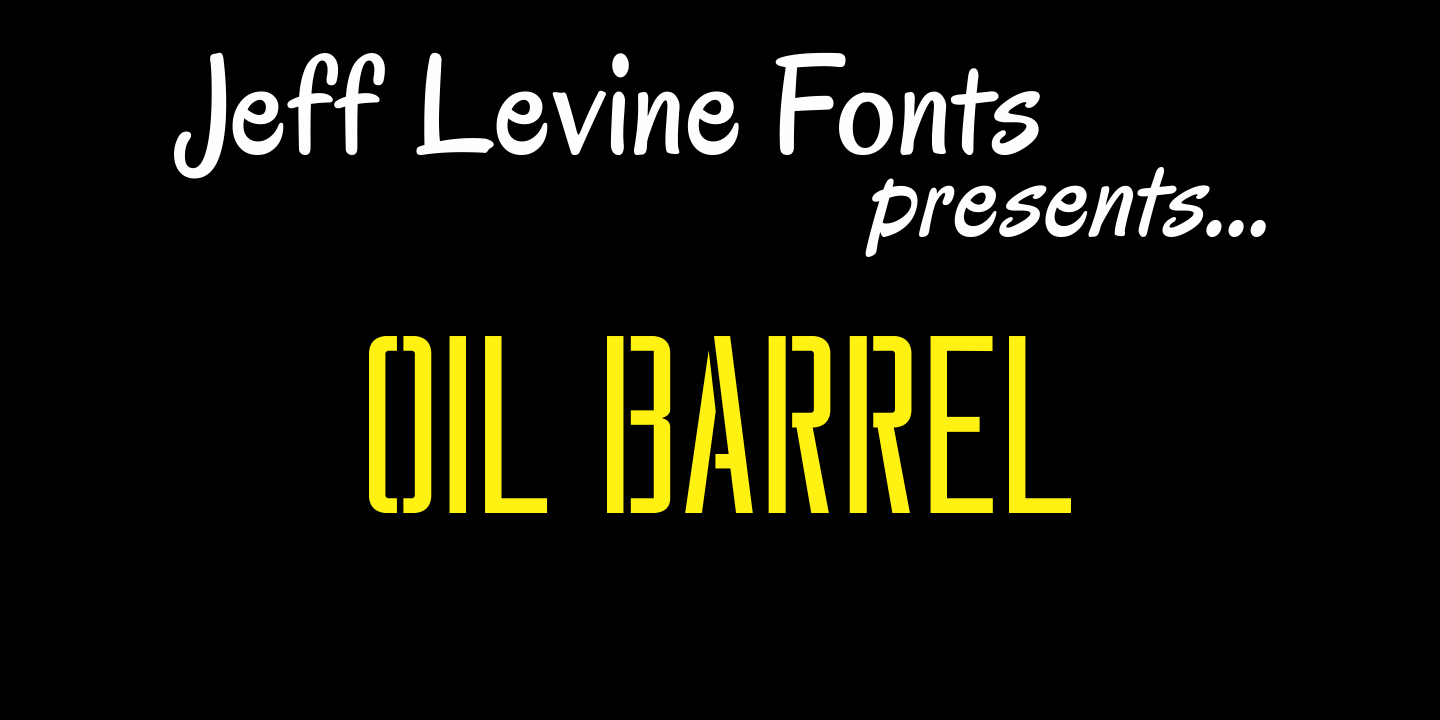
Oil Barrel
Oil Barrel JNL is roughly based on lettering spotted in an online auction of custom brass stencils made for marking different petroleum grades on oil company barrels.